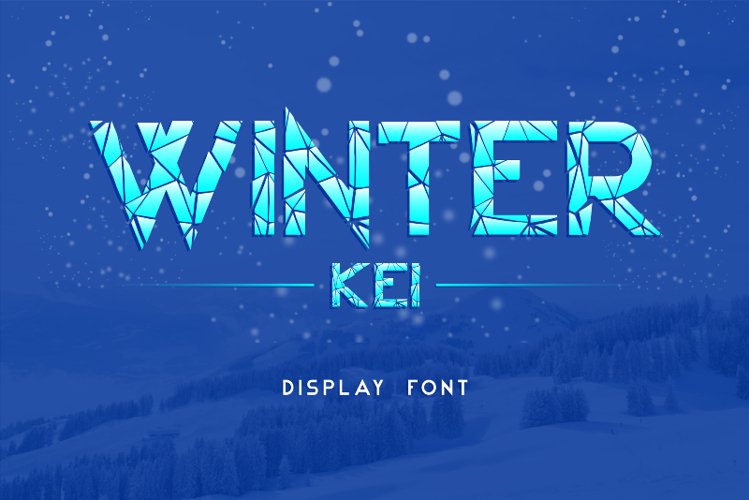
Winter Kei
Winter Kei font is a bold and powerful display font with wintery nuances. A new font looks with winter nuances with an ice mirror style, perfect for any extraordinary project this winter. Its extraordinary design features a shattered mirror or ice shards.